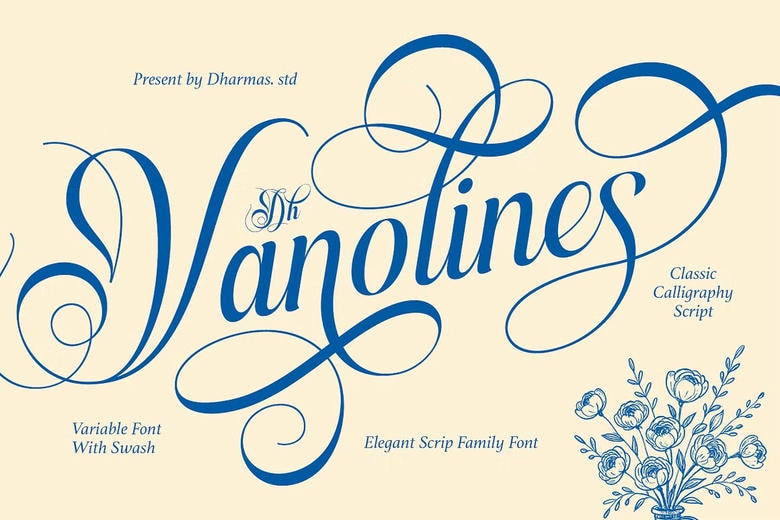
Dh Vanolines Font
Dh Vanolines is a very beautiful calligraphy script font made with a classic and aesthetically pleasing touch. The sweeps and use of dramatic swashes through it adds some romance and chic to any project. With 7 finished styles; Thin, Extra Light, Light, Regular, Medium, Semi Bold, and Bold this typeface can be used both in subtlety and bold uses.
It is most suitable on wedding invites, luxury branding, editorial headlines and high-end packaging. Type with confidence, including more than 160+ alternates and ligatures, Dh Vanolines gives you the freedom to create emotional, personal typography. When full OpenType features and multilingual support are added to the mix, it sets you up to design with style and aplomb.
Dh Vanolines Calligraphy Script Font